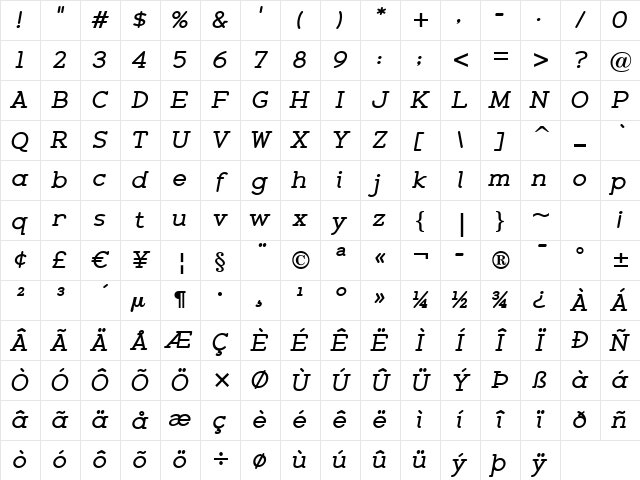
Zolano Serif BTN BoldOblique
Design Context for Zolano Serif BTN
Zolano Serif BTN carries the refined structure of traditional serif typography, with bracketed terminals and considered proportions that communicate credibility and craft. The slanted form adds forward momentum and visual energy. Its bold stroke weight gives it real presence on the page.
Pro Tip: Use Zolano Serif BTN for editorial body copy and considered headline work. Pair with a neutral sans for UI elements or captions to create a classic hierarchy.